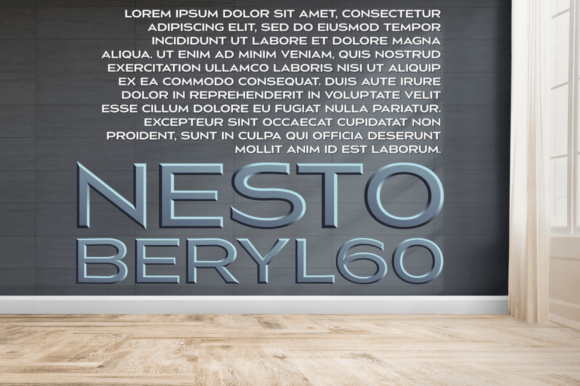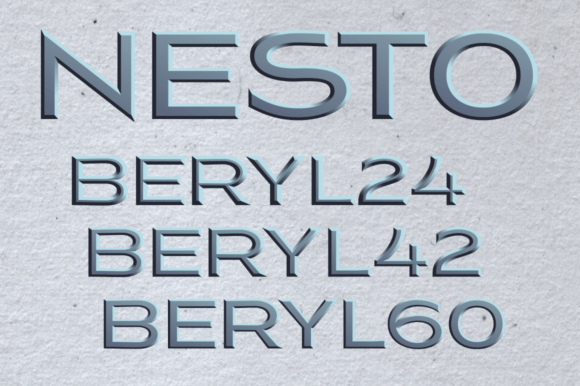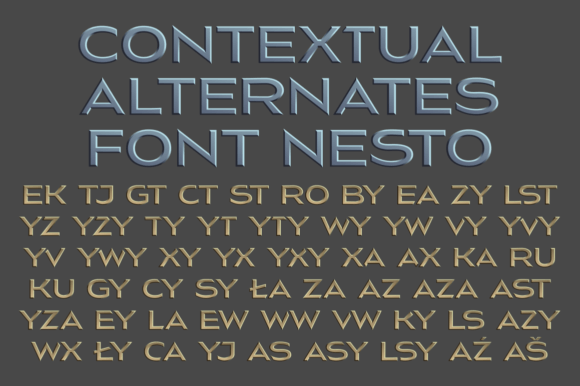
Introduction to Nesto Beryl Font
Nesto Beryl is a cool, assertive, and adaptable color font.
Add it confidently to your favorite creations and let yourself be amazed by the outcome generated Note.
Key Features of Nesto Beryl Font